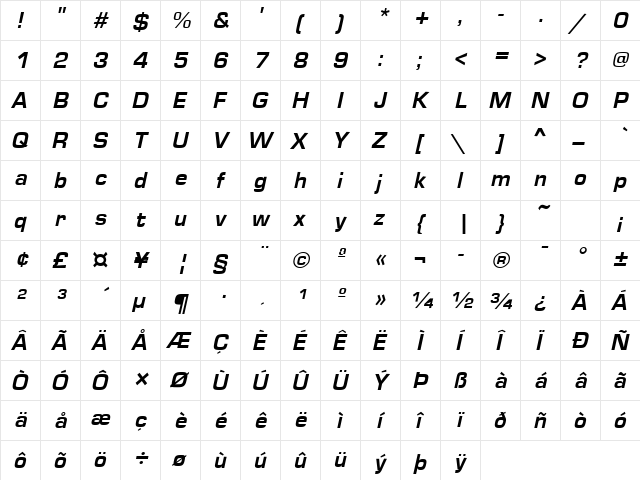
MicroSquare Bold Italic
Design Context for MicroSquare Typeface
MicroSquare is a composed and adaptable typeface that performs quietly and consistently across a wide range of design contexts. The dynamic lean of this cut emphasises speed and emphasis in any layout. The heavy weight commands attention and anchors typographic hierarchies.
Pro Tip: Try MicroSquare for annotation and caption copy alongside an upright companion — the contrast in angle creates a dynamic but ordered typographic system.